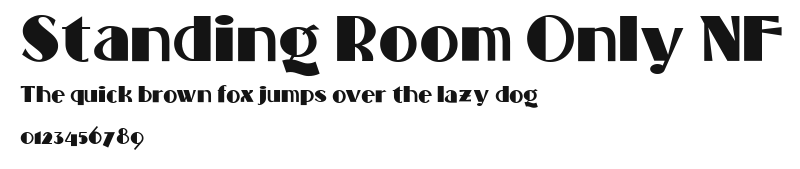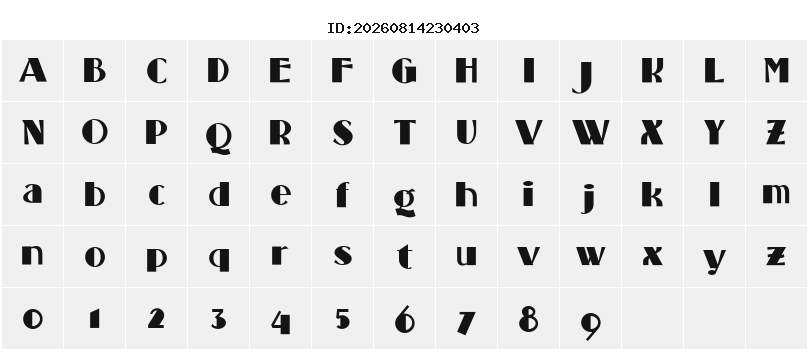
• Font Name: Standing Room Only NF
• Designer: Nick Curtis
• Manufacturer: Nick's Fonts
About Standing Room Only NF.ttf
Standing Room Only NF.ttf is a modern, elegant sans-serif font designed for ultimate readability and visual harmony. Perfect for branding, headlines, web design, and print materials.